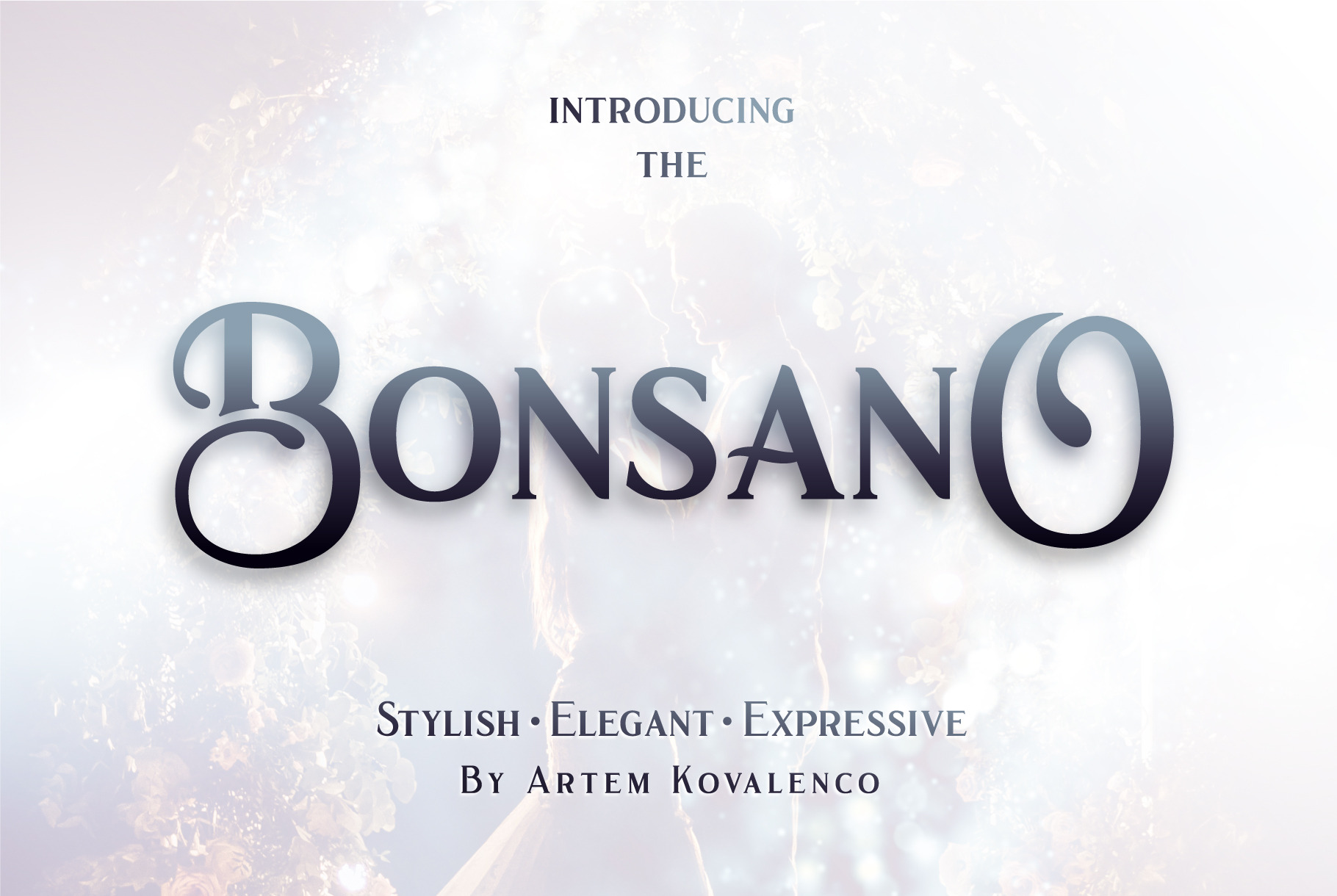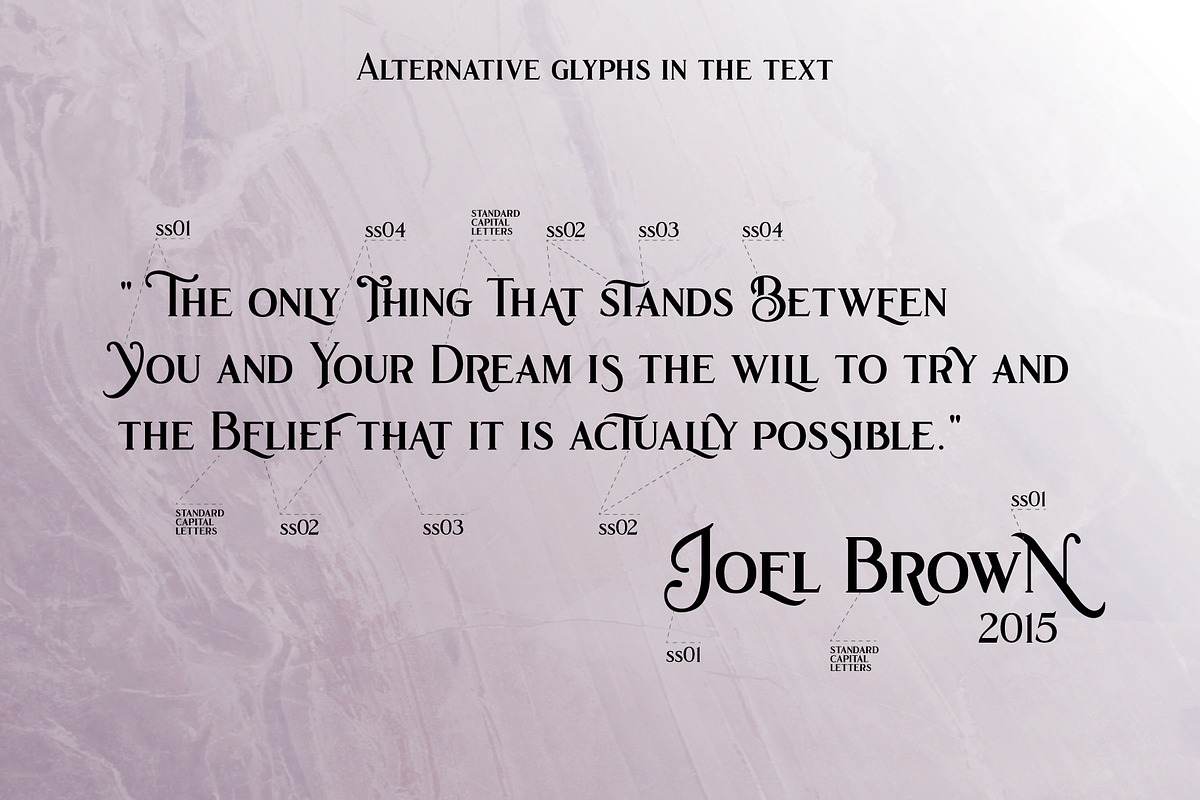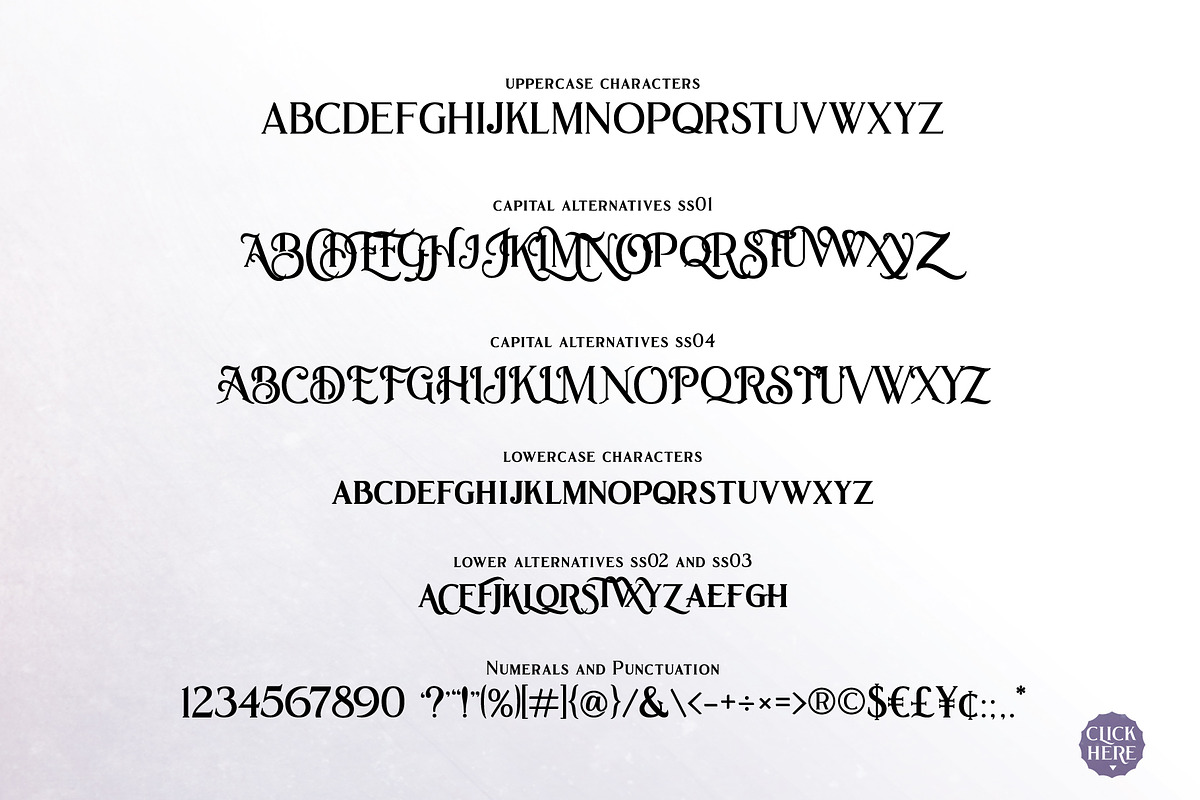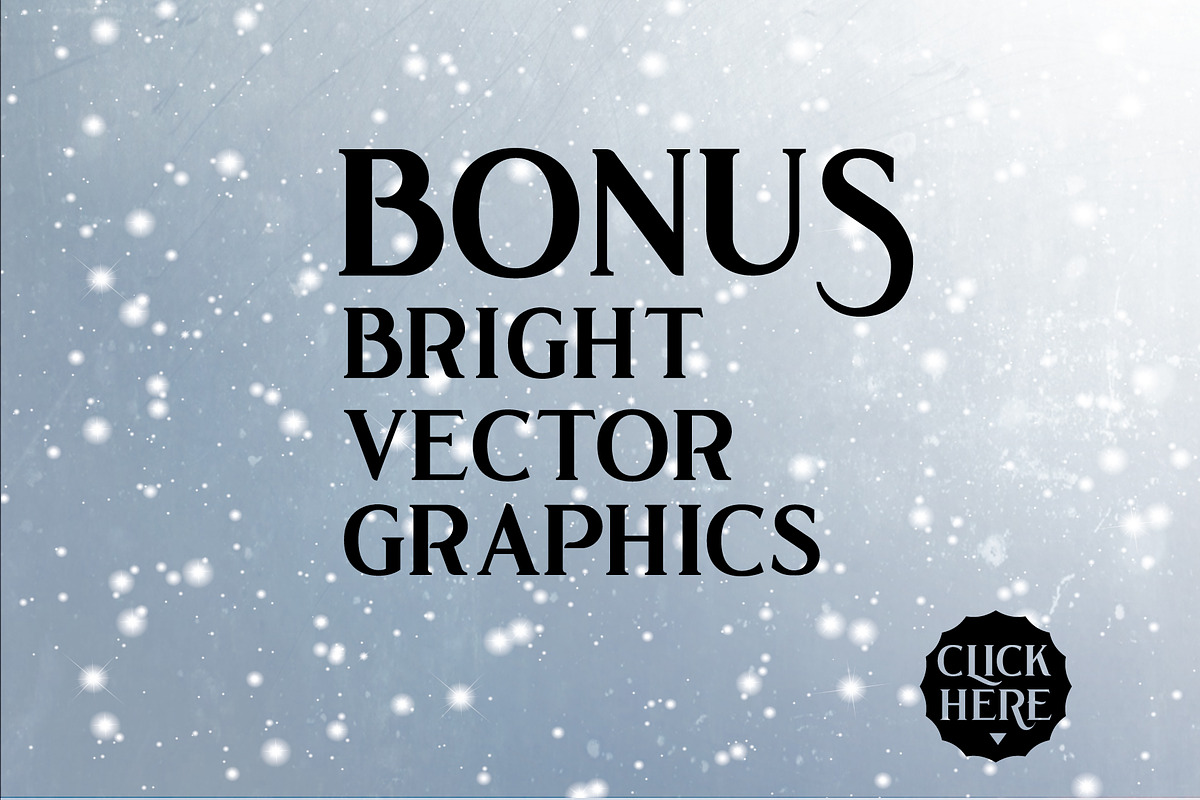
Bonsano font + Bonus
New elegant font typeface - Bonsano. Stylish serif font ideally suited for the design of wedding invitations, design of posters and flyers as well as magazine titles. Due to the large number of alternative styles you can easily make your own logo or expressive inscription.
The font includes 418 glyphs, of which 62 are alternative glyphs.
Font Bonsano
Сapital letters A-Z + (52 alternative glyphs)
Lowercase letters a-z + (20 alternative glyphs)
Numbers 0-9
Accented characters